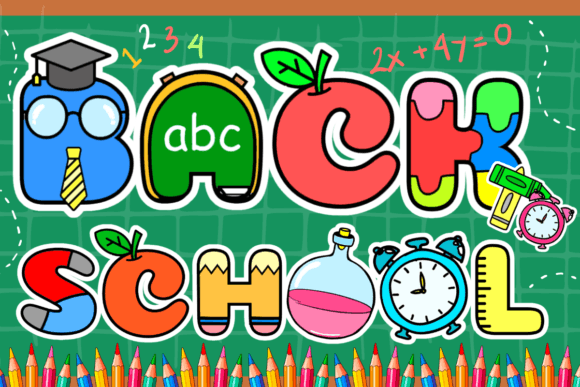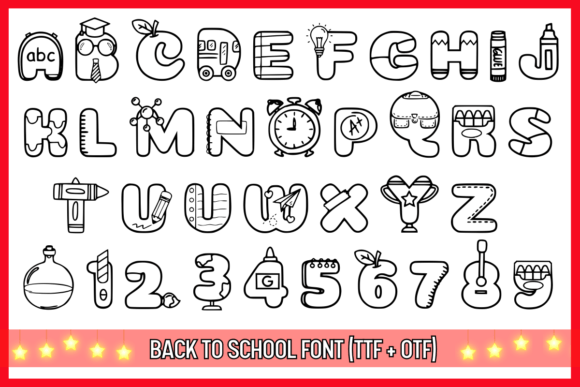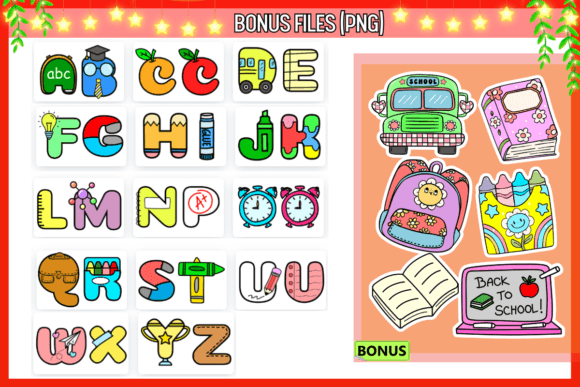
Back to School Font
“Back to School” is a fun decorative font where each letter looks like it’s dressed up in school-related items like pencils, books, or chalkboards. The font includes colorful PNG files of the letters, making it perfect for school-themed projects or decorations.